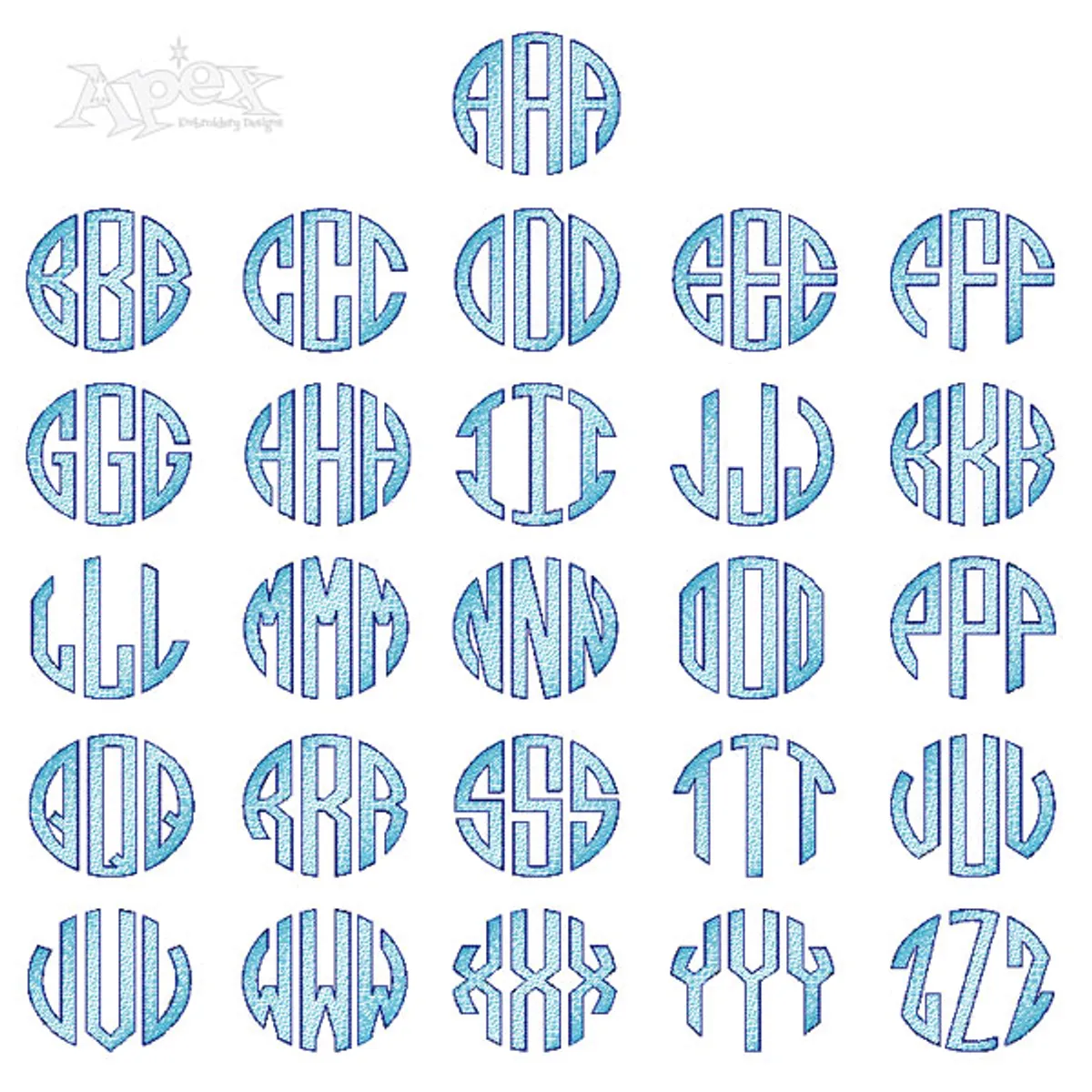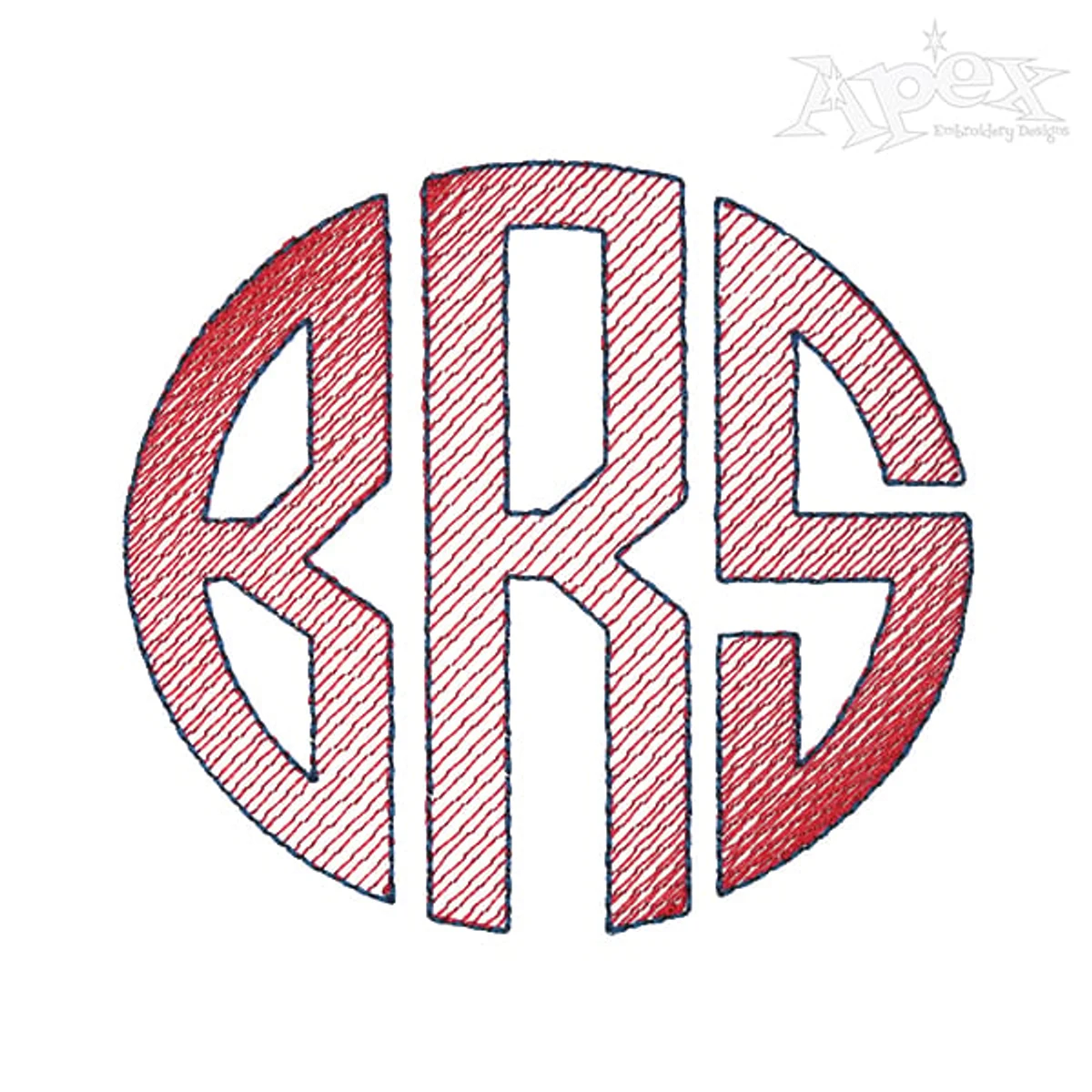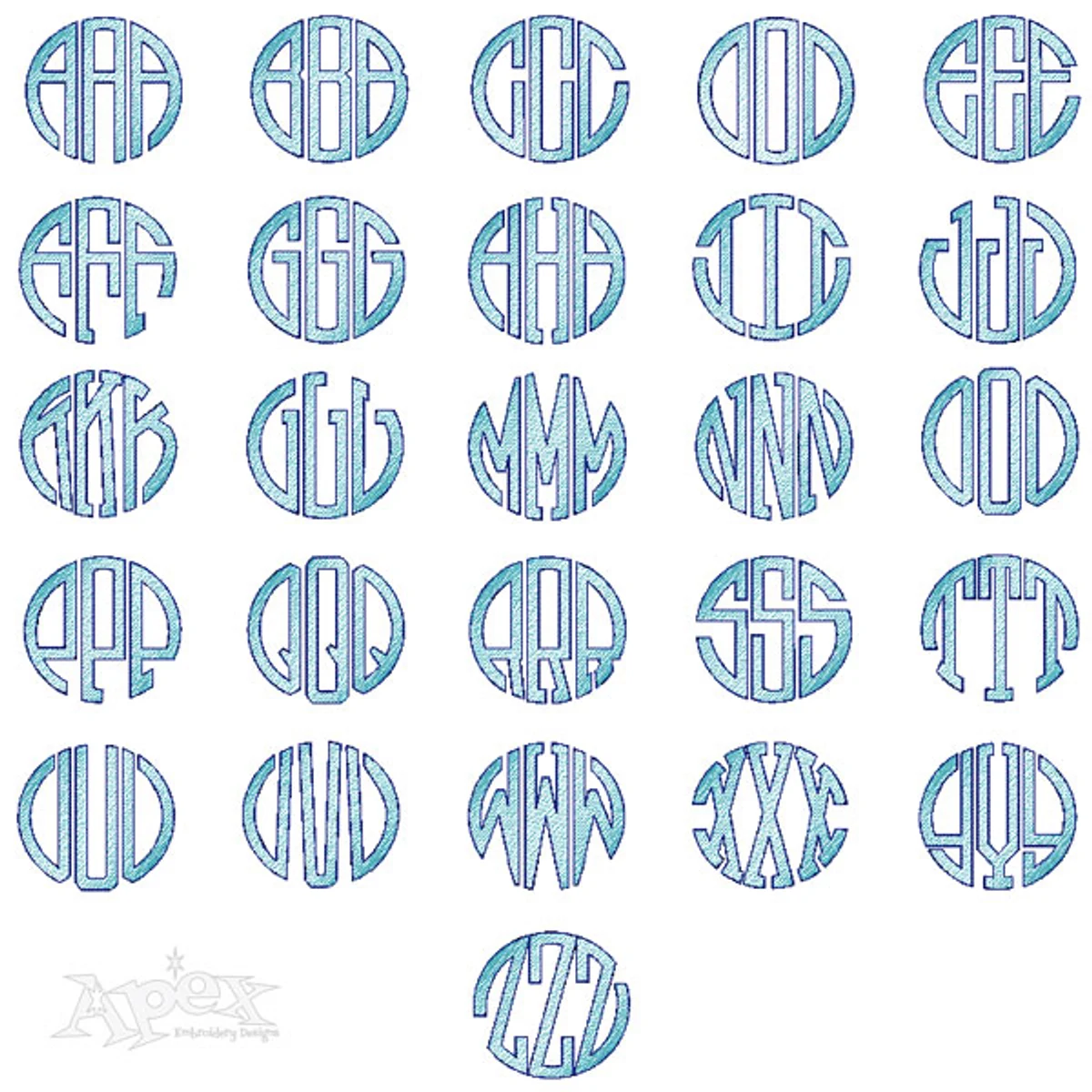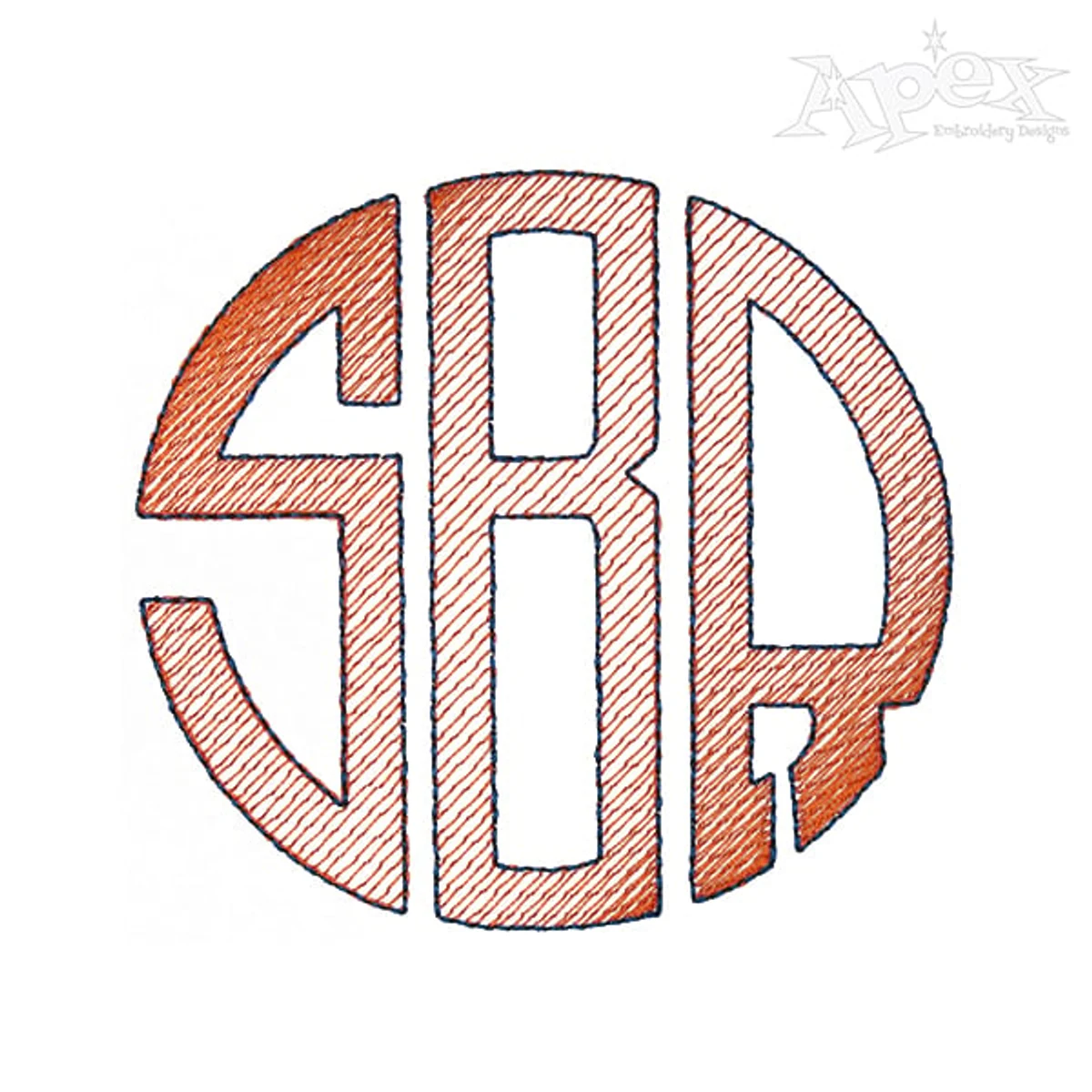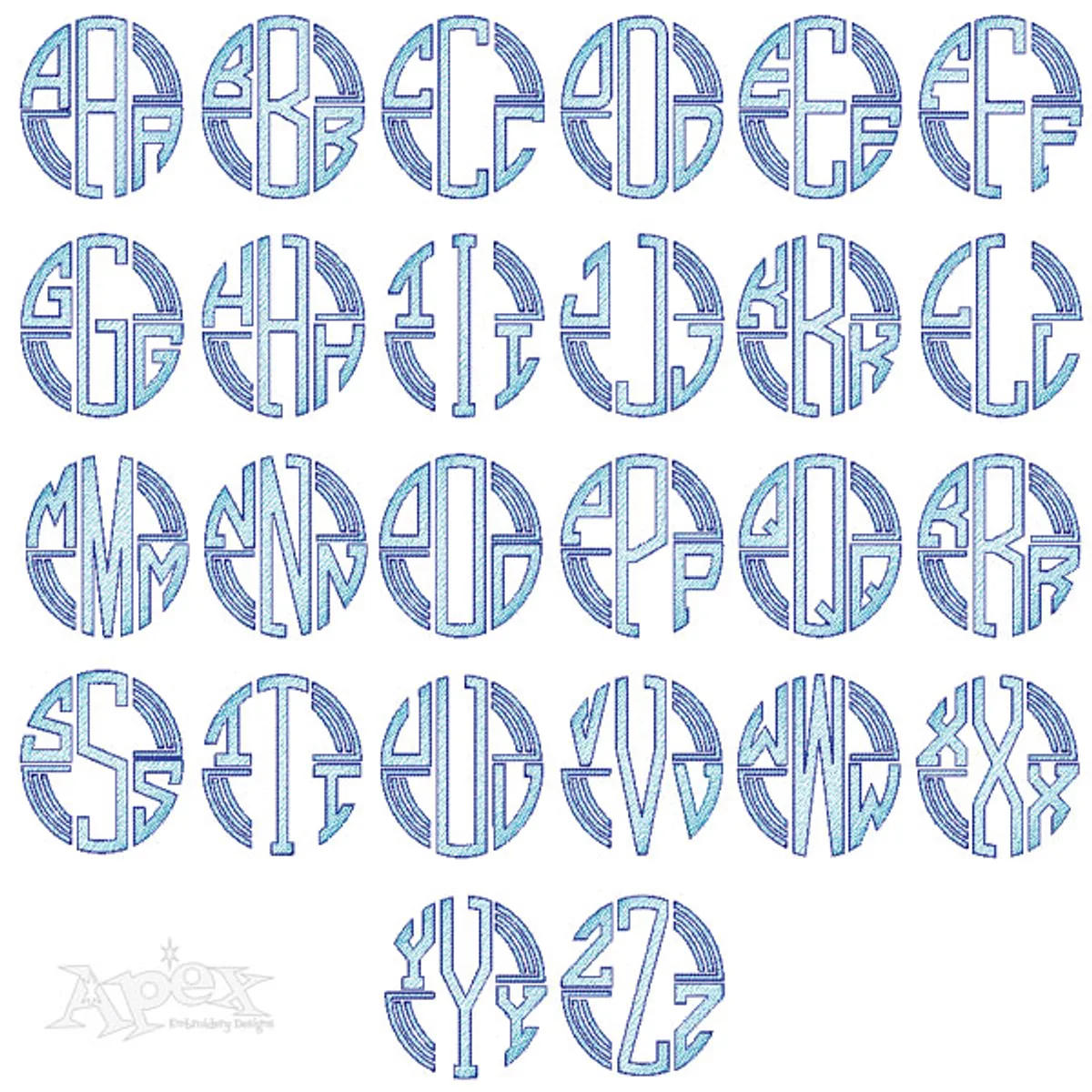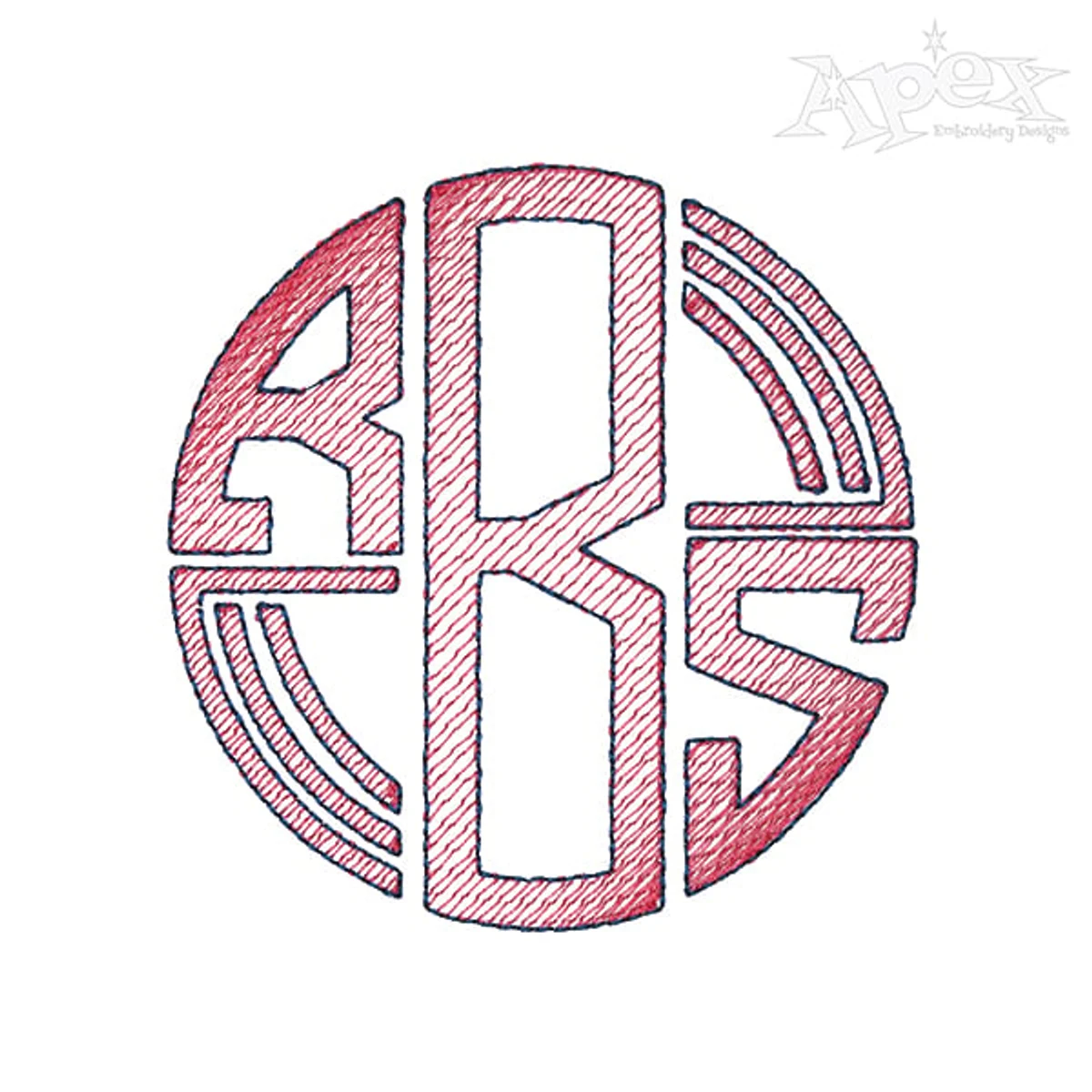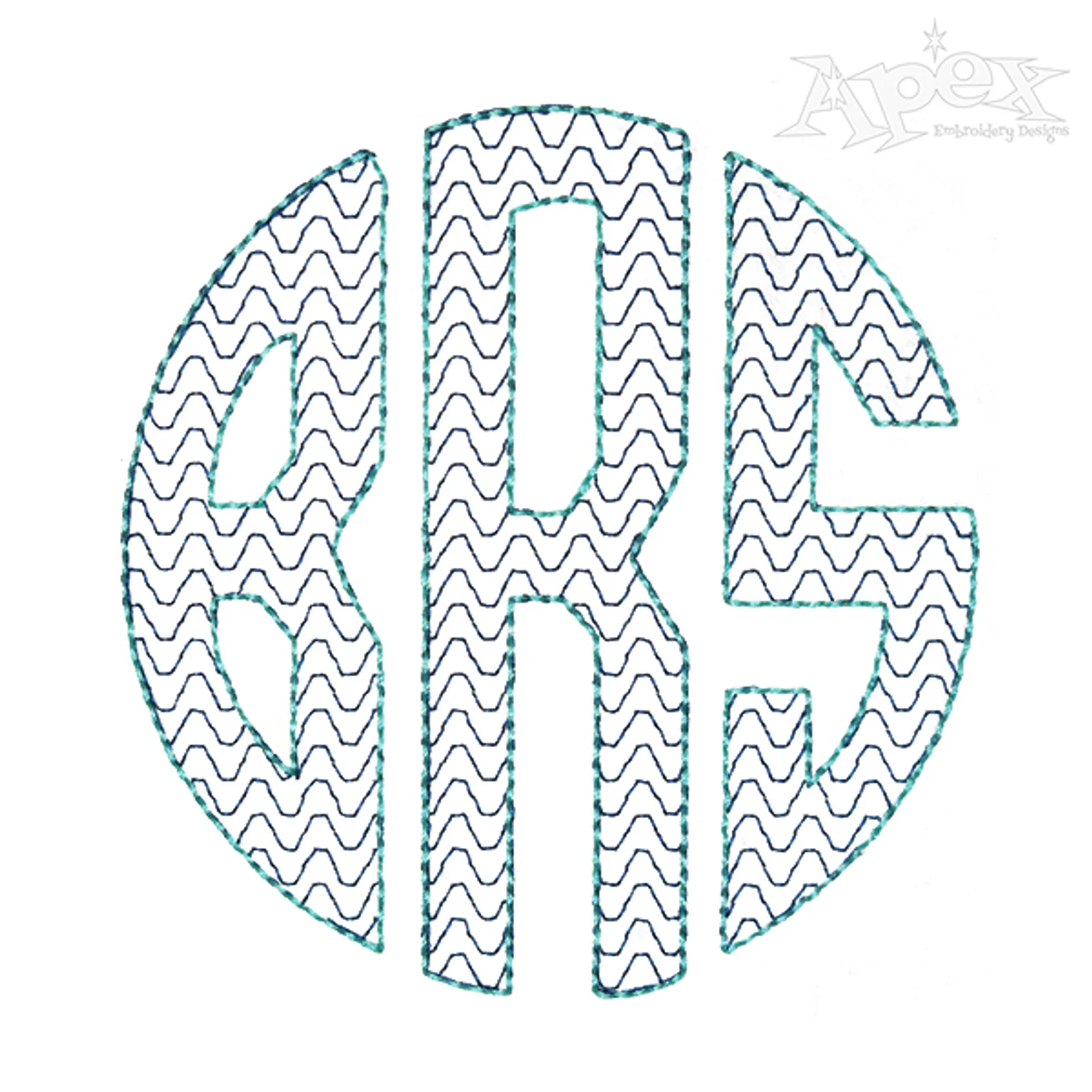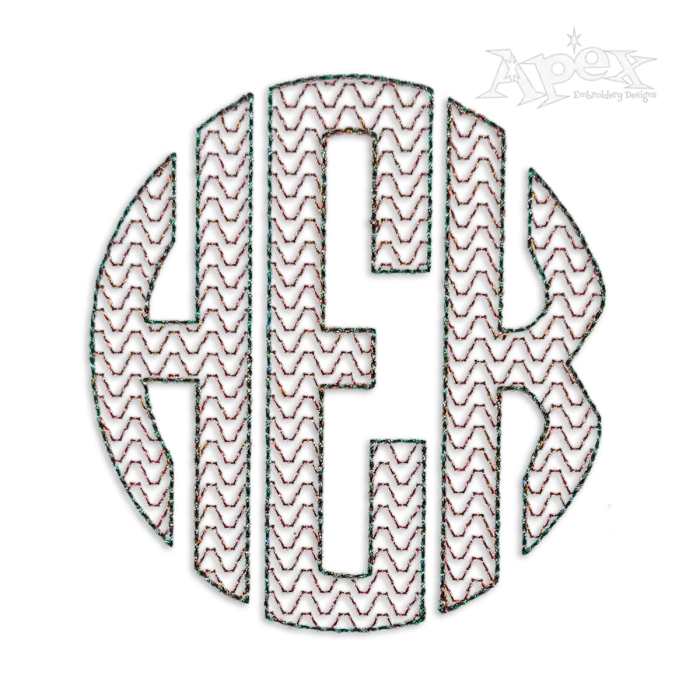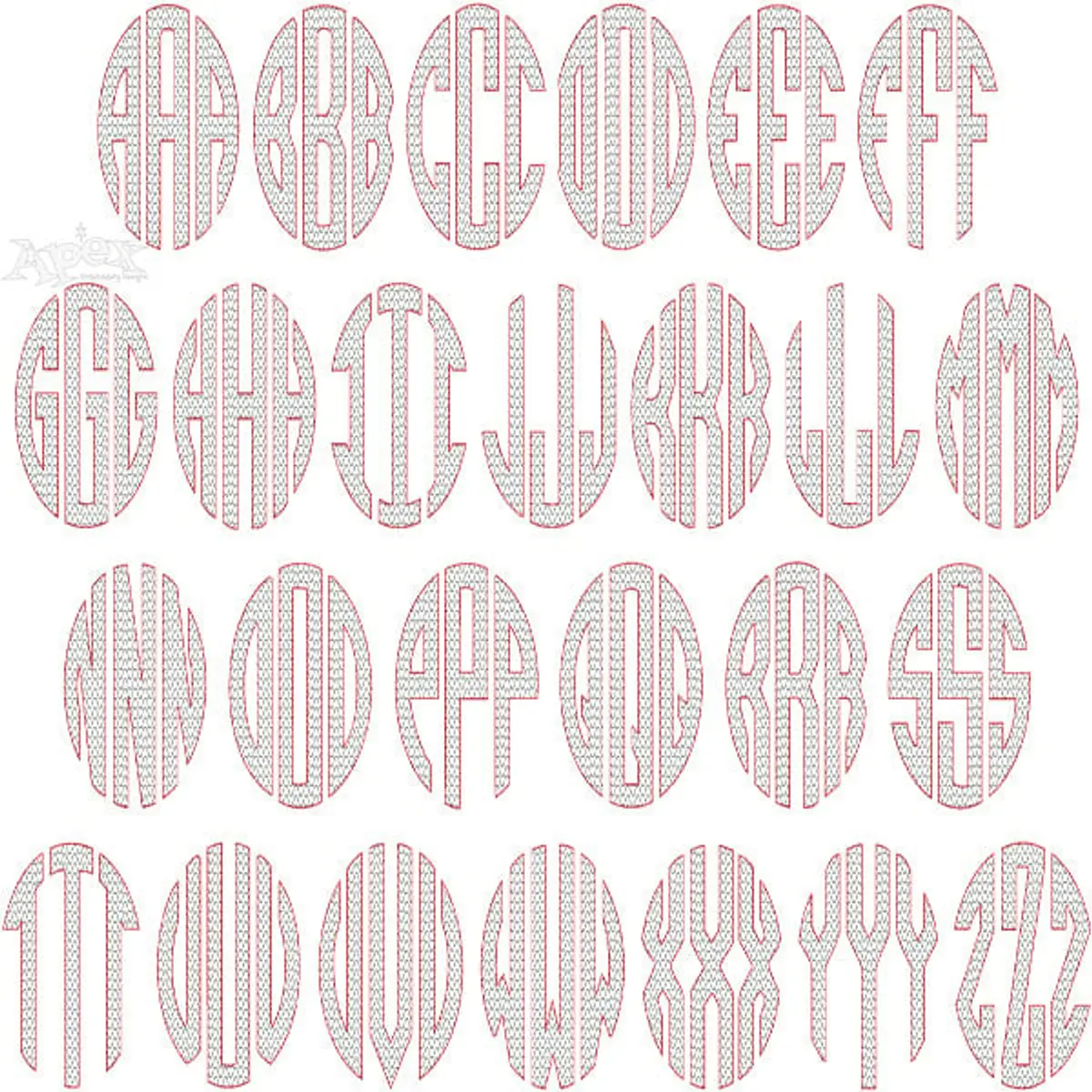
Gradient Sketch Monogram Embroidery Fonts Bundle
Born from the desire to capture the spontaneous romance of an artist’s sketchbook in thread, the Gradient Sketch Monogram Font Bundle reimagines classic circle monogramming with a breathable, contemporary soul. Where traditional satin monograms often feel formal and heavy, these digitized sketch letterforms let the base fabric breathe through graduated line weights, soft shadows, and organic linework. Each initial is framed within an artful, hand-drawn circular silhouette, capturing an effortless boho-luxe aesthetic that bridges relaxed coastal charm with modern heirloom bespoke gifting.
This master monogram collection brings together four uniquely digitized styles in three versatile, production-ready proportions. Each font has been precisely mapped to preserve line definition, stitch harmony, and balanced negative space across all scaling:
- Round Lined Circle Gradient Sketch: 2", 3", and 4" versions featuring refined parallel sketch lines with airy outer ring accents.
- Circle Full Gradient Sketch Monogram: 2", 3", and 4" versions with continuous, atmospheric density shifts across the entire monogram face.
- Raleigh Gradient Sketch Monogram: 2", 3", and 4" versions blending vintage Southern tailored lettering with contemporary sketch shading.
- Sketch Wave Circle Monogram: 2", 3", and 4" versions highlighted by an energetic two-color round outline and wave-like sketch texturing.
Project Ideas for Gradient Sketch Monogram
The open-air density and modern sketch-stitch quality make this collection exceptionally versatile on both stable fabrics and soft, delicate knits:
- Resort & Market Totes: Center a bold 4" Sketch Wave monogram on heavy canvas, jute, or cotton boat totes for relaxed, everyday luxury.
- Bridal Party Keepsakes: Stitch the 2" or 3" Raleigh Gradient onto waffle-weave spa robes, linen toiletry cases, or bridesmaid travel pouches for a personalized touch that feels tailored rather than stiff.
- Bespoke Table Linens: Elevate relaxed linen cocktail napkins, placemats, and runners with the Round Lined Circle style, adding artisanal texture to outdoor entertaining and family gatherings.
- Heirloom Nursery Essentials: Embroider the ultra-soft Full Gradient Monogram on muslin swaddles, cellular blankets, and lightweight coverlets, keeping the fabric supple and gentle against sensitive skin.
- Casual Denim & Shirting: Add an understated, contemporary monogram over a pocket, onto a denim jacket yoke, or along a linen button-down placket.
Because these monograms rely on harmonious negative space, strategic placement brings out the architectural beauty of the sketch circles:
- Corner Diagonal on Linens: Angle a 2" monogram approximately 1.5 inches in from the lower right hemstitched edge of cocktail napkins and guest towels for an organic, boutique look.
- Center Chest on Apparel: Position a 3" motif 3 to 4 inches down from the neckline on loungewear sweatshirts or resort tees for clean, modern visibility.
- Center-Panel Placement on Accessories: Float the 4" size dead-center between straps on structured canvas bags, ensuring the textured sketch ring serves as an eye-catching focal anchor.
- Hem Accent on Robes & Towels: Place the 3" or 4" monogram right above the bottom border of a luxury bath sheet or bathrobe hem to maintain an elegant, understated drape.
Gradient Sketch Monogram Craft & Letterform Details
Digitizing a sketch monogram requires an artisan's understanding of thread movement and deliberate pull-compensation. Unlike heavy, solid-fill satin monograms that can pucker soft fabrics or create dense, bulletproof patches, each line in this collection is calculated with strategic gaps, intentional travel paths, and rhythmic density transitions. The thread mimics the layered, pressure-sensitive strokes of fine graphite and colored pencil, generating depth and movement through visual contrast rather than sheer stitch count.
In the Raleigh and Round Lined styles, the outer circular frame balances crisp, clean boundary lines with feather-light interior hatching, guiding the viewer’s eye seamlessly to the central initial. The Sketch Wave introduces dynamic dimension through an interlocking two-color perimeter, inviting creative thread palette pairings like tone-on-tone neutrals, crisp coastal blues, or gilded metallics against soft earth tones. Every underlay has been stripped of unnecessary bulk to protect drape and softness, giving you a smooth, snag-free stitchout that feels as light in the hand as it is striking to the eye.